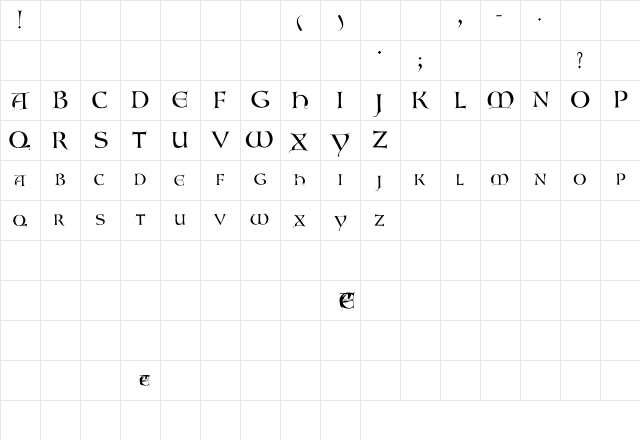
Lombardic-Normal Regular
Design Context for Lombardic-Normal
Lombardic-Normal is a composed and adaptable typeface that performs quietly and consistently across a wide range of design contexts.